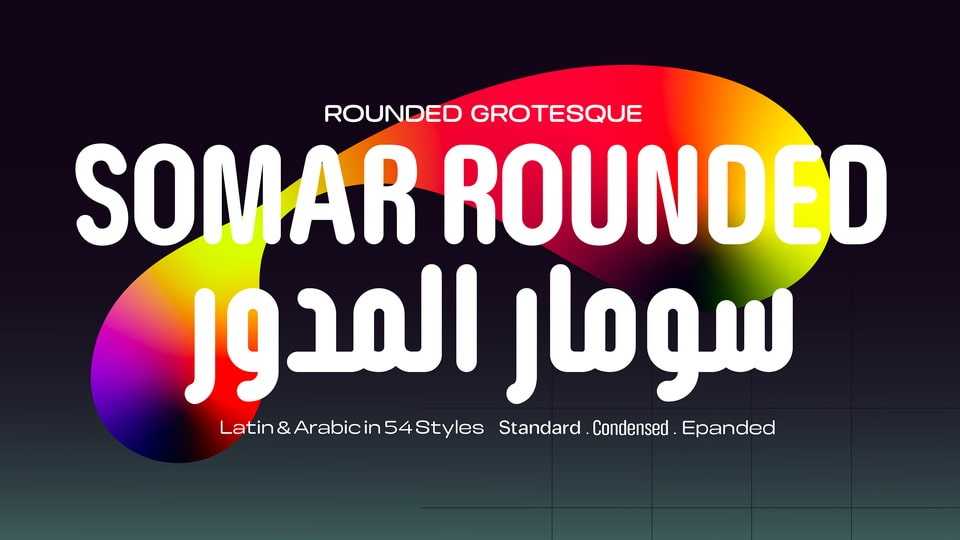
Download Somar Rounded font, a sans serif typeface based on the idea to make a rounded font that doesn’t provoke a childish impression and remains functional in small spaces.
Designer: Baianat Type Design